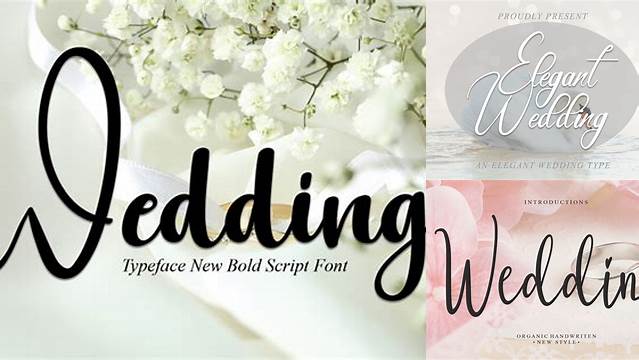
Elegant & Free Wedding Fonts On DaFont: Your Guide
Planning a wedding involves countless details, and one crucial aspect often overlooked is typography. The fonts you choose for your invitations, programs, and signage can significantly impact the overall aesthetic and set the tone for your special day. Free wedding fonts available on platforms like DaFont offer an excellent way to achieve an elegant and personalized look without breaking the bank. In this comprehensive guide, we'll explore the world of free wedding fonts on DaFont, helping you navigate the options and select the perfect typography to complement your wedding style. Choosing the right font is more than just picking something that looks pretty; it’s about conveying the emotion and style of your big day. Think about the first impression your invitation will make. Will it whisper elegance and timeless romance, or shout modern chic and bold celebration? The font is a key element in this communication, setting the stage for the entire event. And let’s be real, weddings can be expensive! Finding free wedding fonts that are both beautiful and high-quality can be a huge relief. DaFont is a treasure trove of options, but it can also feel a bit overwhelming. That’s why we’re here to help you navigate the sea of serifs, scripts, and sans-serifs. We’ll break down different font styles, offer tips on how to pair fonts effectively, and even share some of our favorite free wedding fonts from DaFont. So, whether you’re a seasoned designer or a DIY bride (or groom!), this guide will give you the confidence to choose the perfect fonts for your wedding. Let’s dive in and discover the world of elegant typography, all without spending a dime. After all, the money you save on fonts can go towards that extra slice of cake, right? Remember, the goal is to create a cohesive and beautiful look that reflects your personal style as a couple. Don't be afraid to experiment and have fun with it! This is your chance to make your wedding stationery truly unique and memorable. And with the right fonts, you can do just that, all while staying within your budget.
Why Choose Free Wedding Fonts from DaFont?
DaFont is a popular online resource offering a vast collection of fonts, many of which are available for free. When it comes to wedding fonts, DaFont provides a diverse range of styles, from classic and romantic scripts to modern and minimalist sans-serifs. Opting for free wedding fonts from DaFont has several advantages. First and foremost, it's cost-effective, allowing you to allocate your budget to other wedding expenses. Secondly, the sheer variety of fonts available means you're likely to find something that perfectly matches your wedding theme and personal style. Lastly, using unique and less common fonts can add a personalized touch to your wedding stationery and décor. Now, you might be thinking, “Are free fonts really good enough for my wedding?” And that’s a valid question! The truth is, the quality of free fonts can vary, but DaFont has a huge selection, and with a little searching, you can find some real gems. Plus, many talented designers share their creations on DaFont, often offering personal-use licenses for free, which is perfect for weddings. But why choose free fonts in the first place? Well, weddings are expensive! Every little bit of savings helps. And let's be honest, spending a fortune on fonts when you have so many other expenses to consider might not be the wisest choice. Using free fonts from DaFont allows you to save money without sacrificing style. Think of it as a smart way to allocate your budget, leaving more room for things like the venue, the flowers, or that dream wedding dress. Another fantastic reason to explore DaFont is the sheer variety. You’re not limited to the same old generic fonts that everyone else uses. DaFont has a diverse collection, ranging from elegant scripts to modern sans-serifs and everything in between. This means you can find a font that truly reflects your personality and wedding theme. Whether you’re going for a rustic, vintage vibe or a sleek, contemporary look, there’s a font on DaFont that will fit the bill. But the best part? Using unique and less common fonts can add a personal touch to your wedding. It’s a way to make your invitations, programs, and signage stand out and truly represent you as a couple. Instead of using a font that everyone recognizes, you can choose something special and memorable. So, if you're looking for beautiful, high-quality fonts that won't break the bank, DaFont is definitely worth exploring. With a little patience and a good eye, you can find the perfect typography to make your wedding stationery truly shine. And remember, the money you save can go towards making other aspects of your wedding even more spectacular.
Popular Wedding Font Styles on DaFont
DaFont offers a wide array of wedding font styles, each with its unique charm and appeal. Script fonts, with their flowing and elegant letterforms, are a classic choice for wedding invitations and stationery. They evoke a sense of romance and sophistication, perfect for traditional or formal weddings. Serif fonts, characterized by their small decorative strokes, are another popular option. They convey a sense of timelessness and formality, making them suitable for classic and elegant wedding themes. Sans-serif fonts, on the other hand, offer a modern and minimalist aesthetic. With their clean and simple lines, they are ideal for contemporary weddings or for couples who prefer a more understated look. To really get into the details, let’s explore the popular wedding font styles on DaFont. We’re talking about script fonts, serif fonts, and sans-serif fonts. Each style brings its own flavor to the table, and knowing the difference can help you narrow down your choices. First up, we have script fonts. These are the elegant, flowing fonts that look like beautiful handwriting. They’re a classic choice for weddings because they evoke a sense of romance and sophistication. Think of swirling letters and delicate strokes – perfect for invitations and place cards. If you’re planning a traditional or formal wedding, a script font is a fantastic way to set the tone. Imagine your guests receiving an invitation with a beautifully scripted font; it instantly communicates elegance and attention to detail. But, here’s a tip: script fonts can sometimes be tricky to read, especially in large blocks of text. So, it’s best to use them sparingly, perhaps for headings or names, and pair them with a simpler font for the body text. Next, we have serif fonts. These fonts have small decorative strokes at the ends of the letters, giving them a classic and timeless feel. Think of fonts like Times New Roman or Garamond – they’re reliable, elegant, and easy to read. Serif fonts convey a sense of formality and tradition, making them a great choice for more classic wedding themes. They work well for both headings and body text, so you can use them throughout your wedding stationery. If you want your wedding to feel timeless and sophisticated, a serif font is a solid choice. On the other end of the spectrum, we have sans-serif fonts. These fonts are clean and modern, without the decorative strokes of serif fonts. Think of fonts like Arial or Helvetica – they’re simple, straightforward, and easy to read. Sans-serif fonts are perfect for contemporary weddings or for couples who prefer a more understated look. They’re versatile and work well in a variety of settings, from invitations to signage. If you’re going for a modern, minimalist vibe, a sans-serif font is the way to go. They offer a clean and fresh look that’s both stylish and easy on the eyes. So, as you browse DaFont, keep these styles in mind. Think about the overall feel you want to create for your wedding and choose fonts that align with that vision. And remember, you can always mix and match different styles to create a unique and personalized look.
How to Choose the Right Wedding Font
Selecting the right wedding font involves considering several factors. First, think about your wedding theme and style. A rustic wedding might call for a different font than a modern, minimalist one. Second, consider the readability of the font. While elegant script fonts can be beautiful, they may not be the most legible for large blocks of text. It's essential to strike a balance between aesthetics and readability. Third, think about font pairing. Combining different fonts can add visual interest, but it's crucial to choose fonts that complement each other. A good rule of thumb is to pair a script or decorative font with a simple serif or sans-serif font. Now, let’s get down to the nitty-gritty: how do you actually choose the right wedding font? It’s not just about picking the prettiest one you see; it’s about finding a font that reflects your style, is easy to read, and works well with other design elements. The first thing to consider is your wedding theme and style. Are you planning a rustic, outdoor celebration or a chic, modern affair? The font you choose should align with the overall vibe of your wedding. A fancy script font might be perfect for a traditional, romantic wedding, but it might feel out of place at a casual, bohemian gathering. Think about the mood you want to create and choose fonts that help convey that feeling. For example, if you’re having a vintage-themed wedding, you might look for fonts with a classic, retro feel. If your wedding is more modern, a clean sans-serif font could be the perfect choice. The second crucial factor is readability. Yes, those swirly, elegant script fonts can be stunning, but if your guests can’t read them, what’s the point? It’s essential to strike a balance between aesthetics and readability. Think about how the font will look on your invitations, programs, and other stationery. Will it be easy to read in different sizes and colors? If you’re using a script font, consider using it for headings or names and pairing it with a simpler font for the body text. This will ensure that your message is clear and easy to understand. And finally, let's talk about font pairing. This is where things can get really fun, but also a little tricky. Combining different fonts can add visual interest to your wedding stationery, but it’s crucial to choose fonts that complement each other. You don’t want your fonts to clash or compete for attention. A good rule of thumb is to pair a script or decorative font with a simple serif or sans-serif font. This creates a nice contrast and ensures that your design is balanced. For example, you might pair a flowing script font for your names with a clean sans-serif font for the wedding details. Or, you could use a classic serif font for headings and a simple sans-serif font for the body text. There are plenty of online resources that can help you with font pairing, so don’t be afraid to do some research and experiment. Ultimately, the best way to choose the right wedding font is to try out different options and see what looks best for your specific design. Download a few fonts from DaFont and play around with them in your design software. See how they look in different sizes, colors, and combinations. Don’t be afraid to get creative and have fun with it! This is your chance to create a wedding that truly reflects your style and personality.
Top Free Wedding Fonts on DaFont
DaFont boasts an extensive collection of free fonts suitable for weddings. Some popular choices include